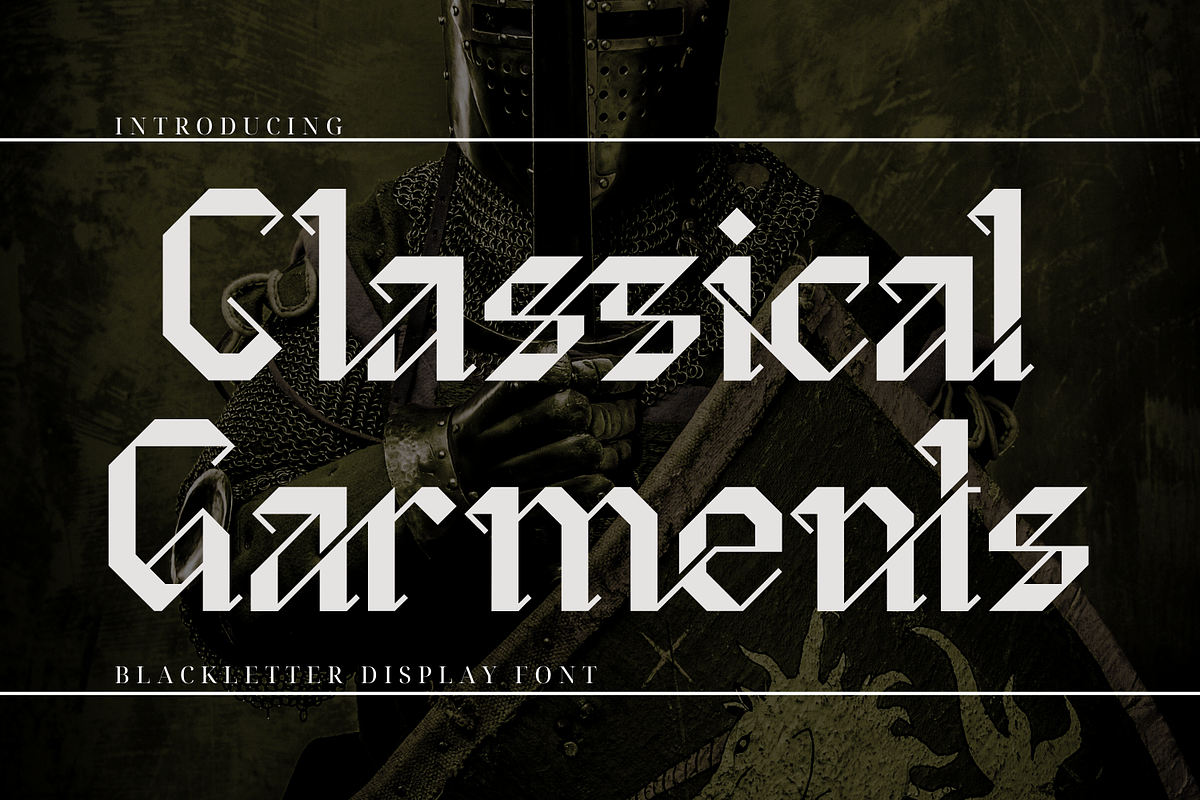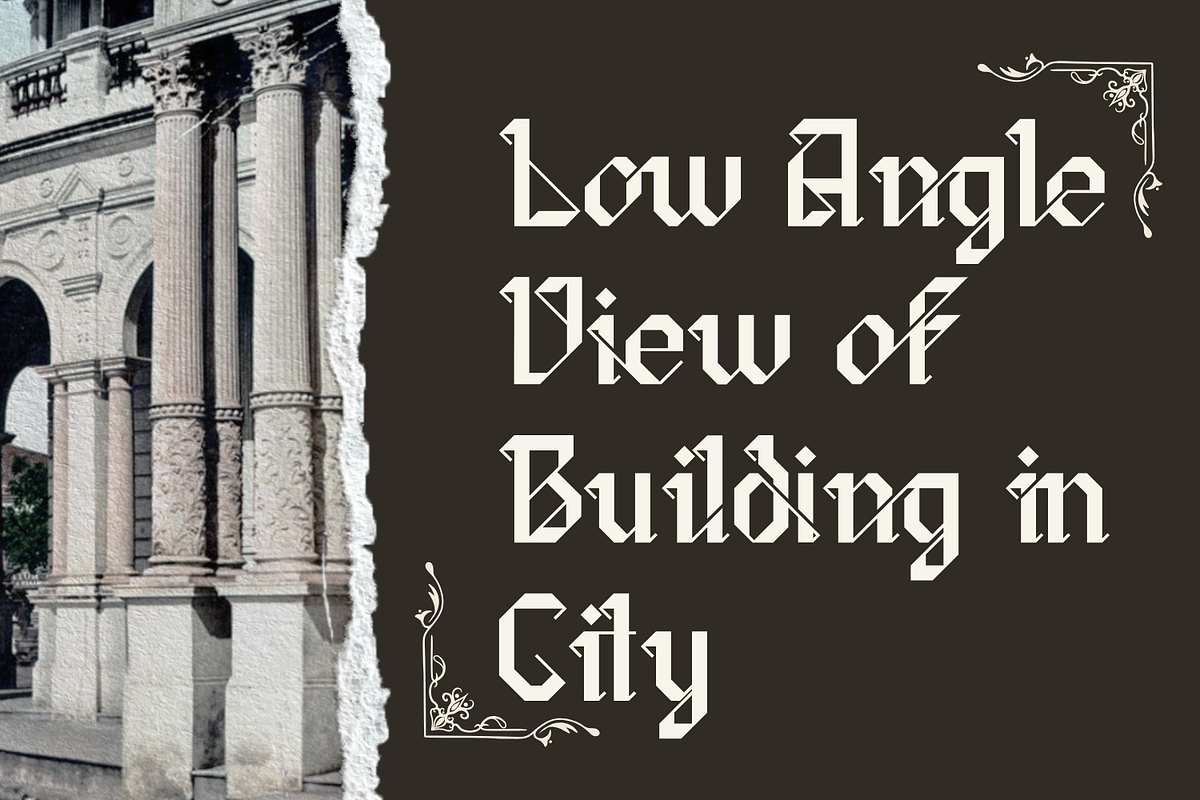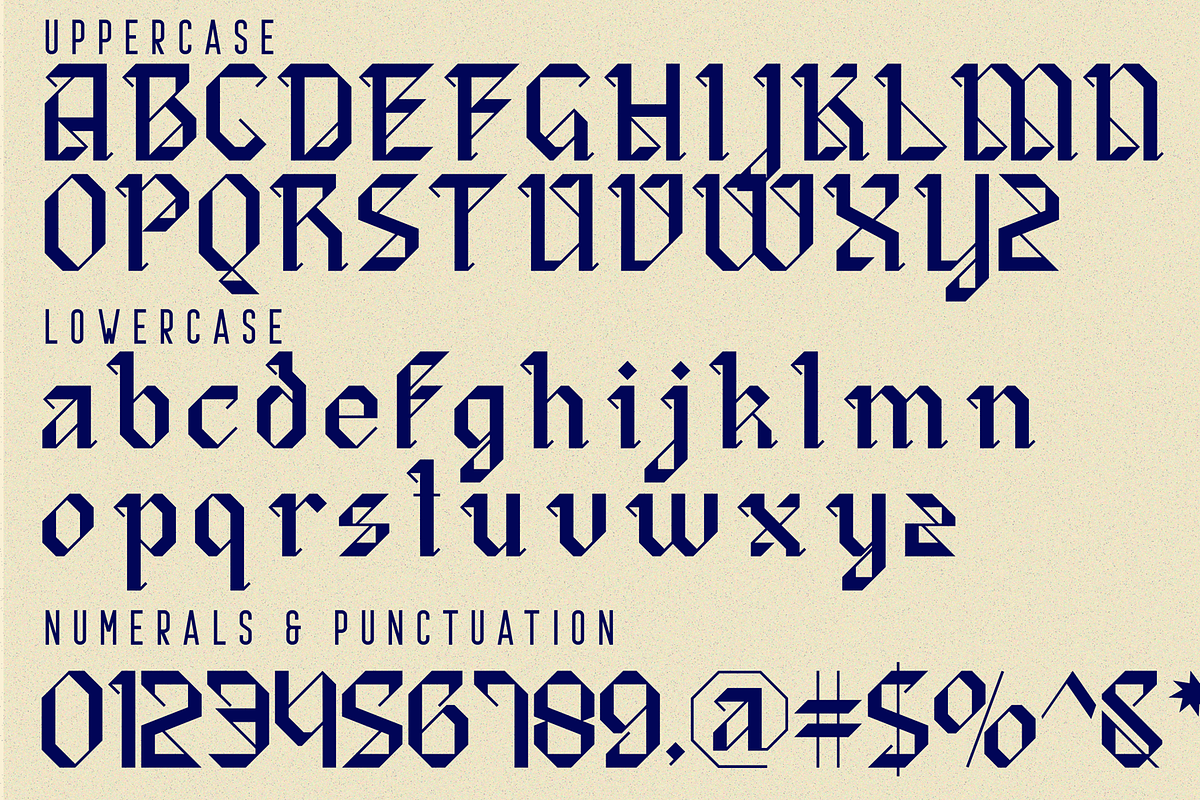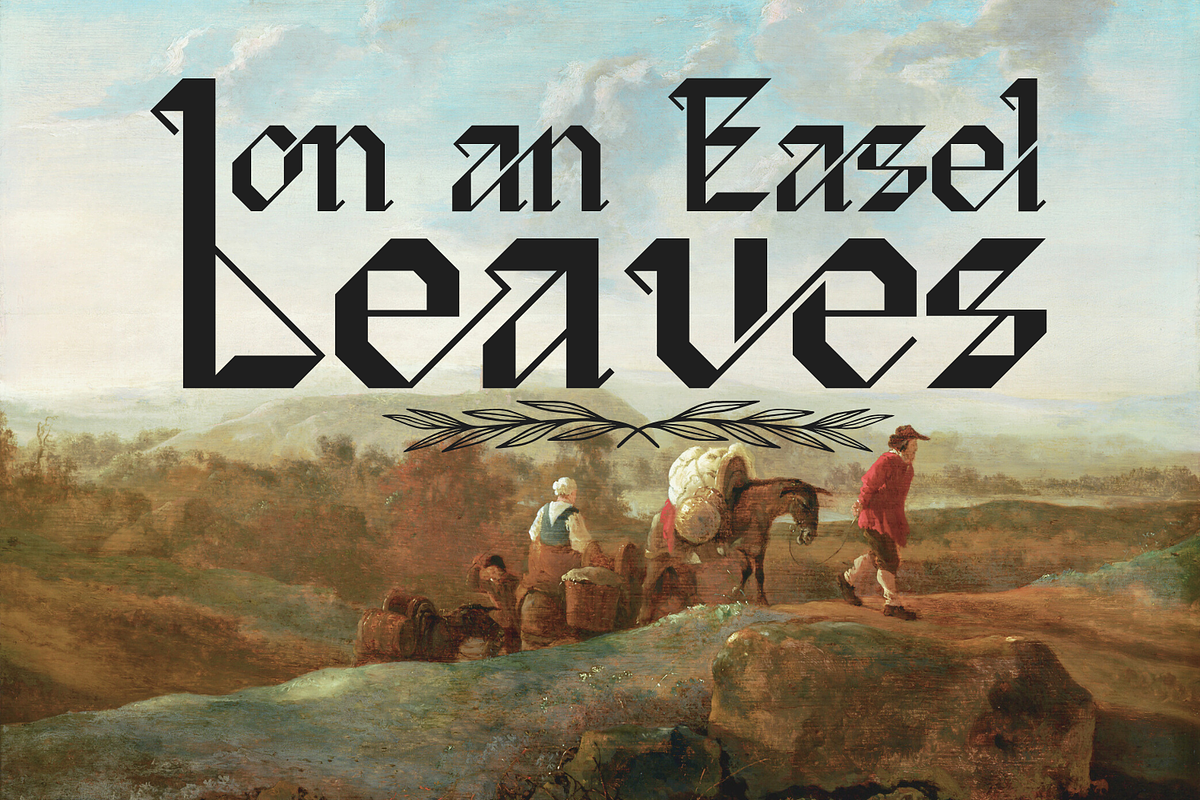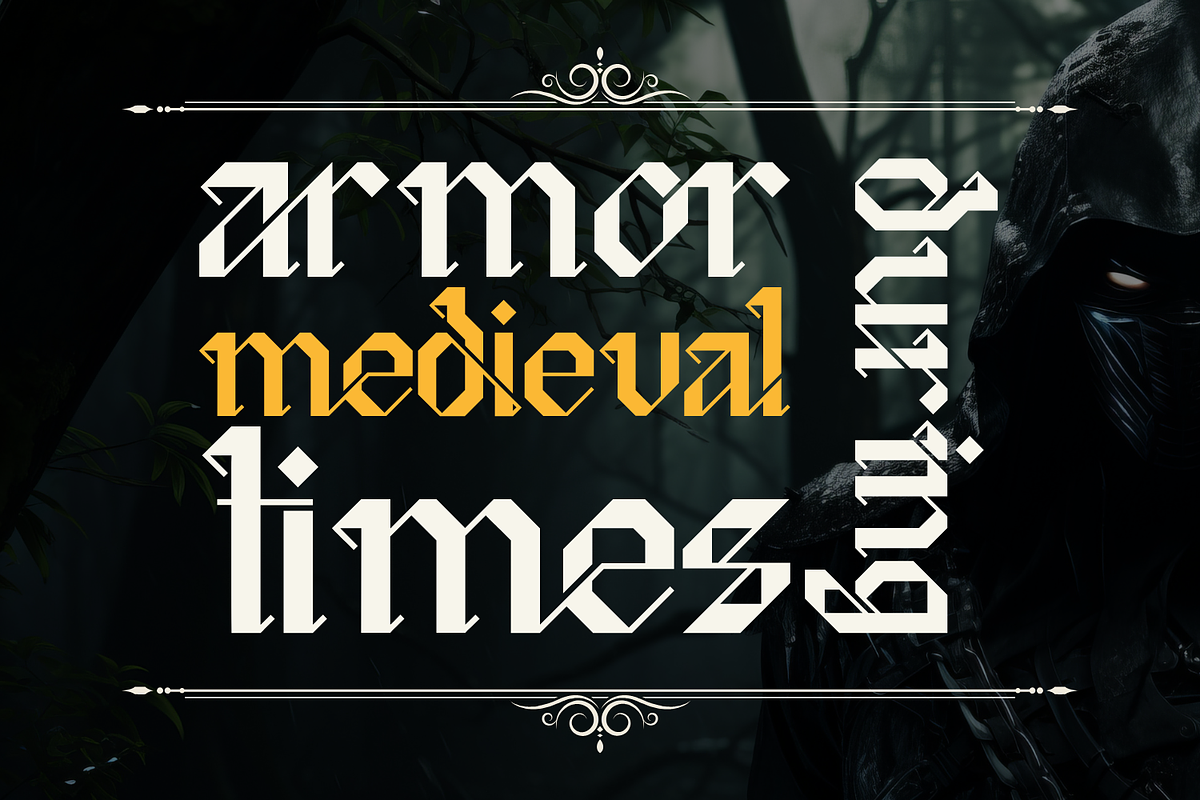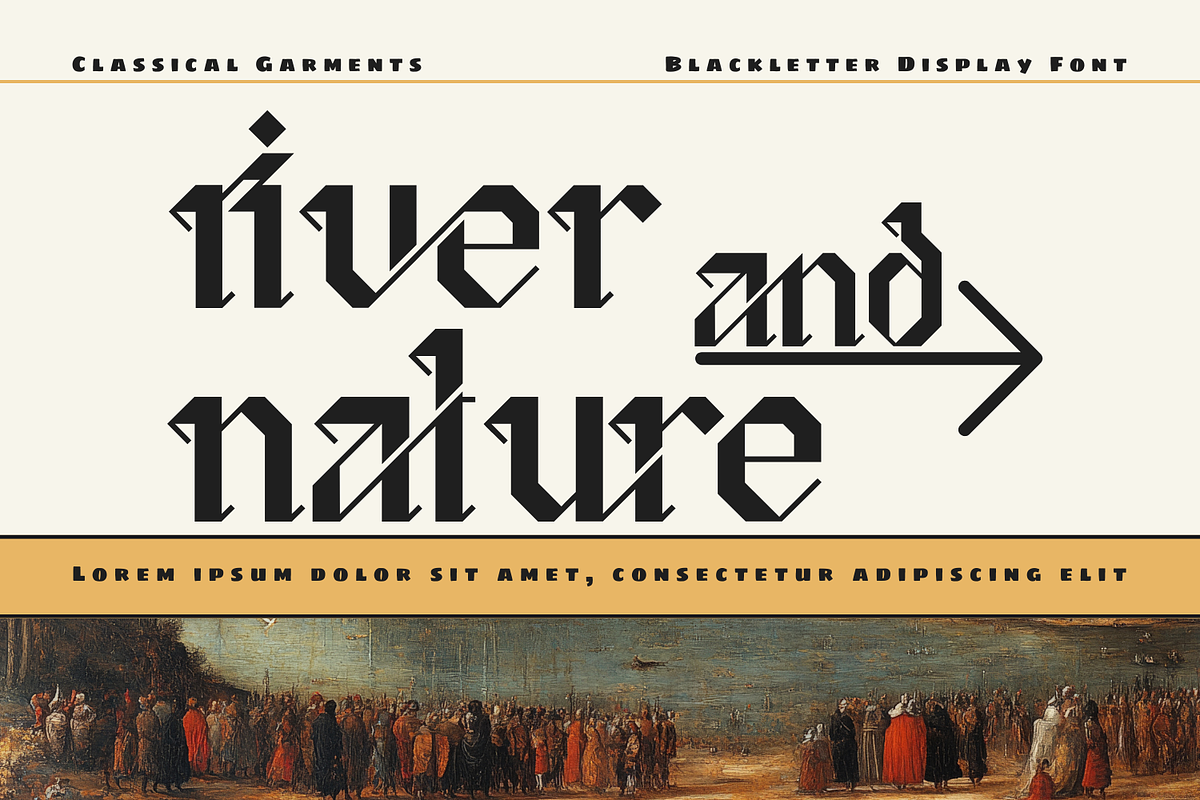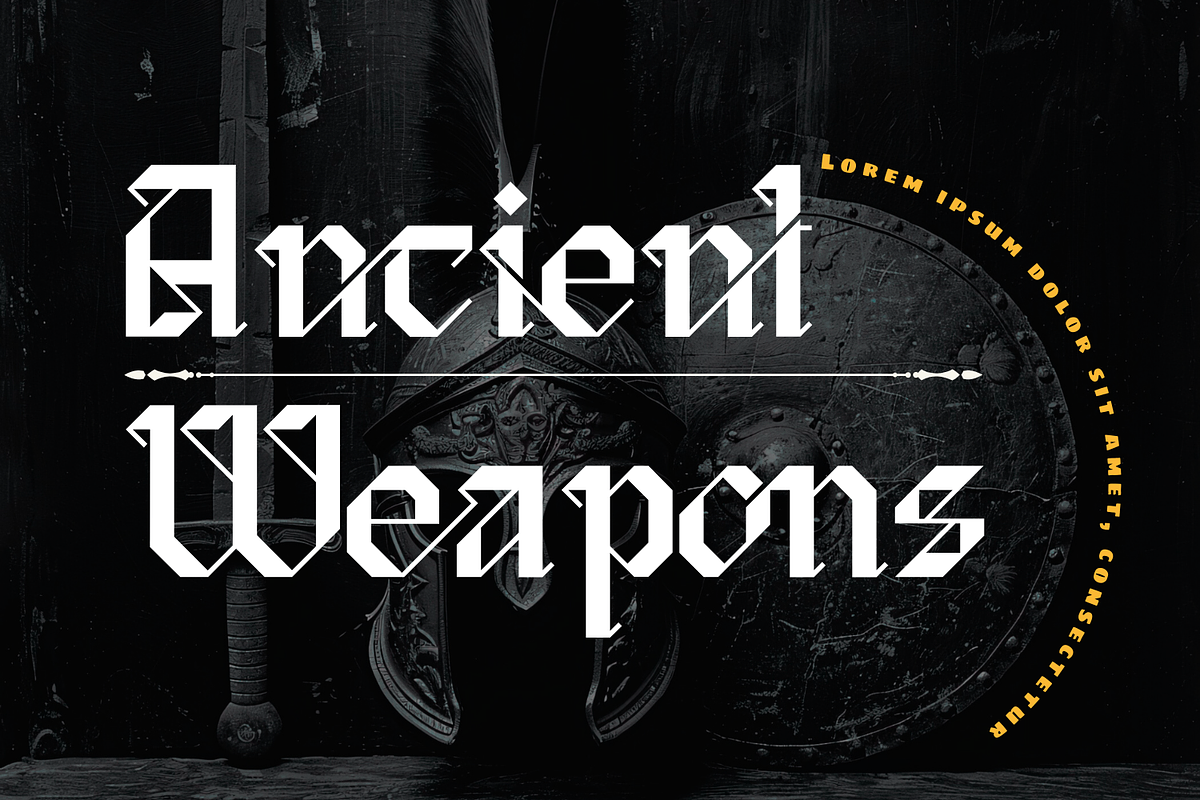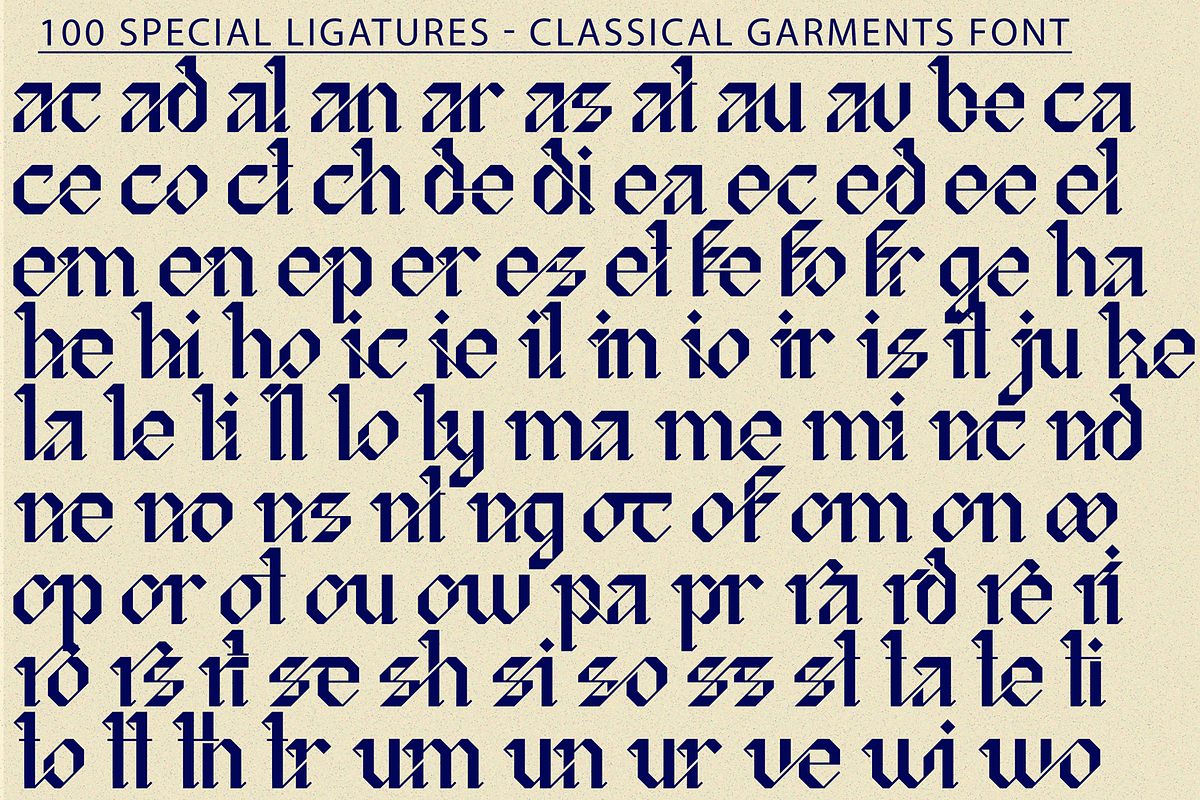
Classical Garments Font
Classical Garments Font is a modern blackletter display font that combines the timeless elegance of traditional blackletter design with a bold, contemporary approach. Featuring sharp lines, striking serifs, and bold strokes, this typeface exudes authority and sophistication, while its modern elements make it relevant and impactful in today’s design landscape.
Classical Garments was built with OpenType features and includes 100 ligatures, alternate, numbers, punctuation, and it also supports other languages.
ac ad al an ar as at au av be ca ce ch co ct de di ea ec ed ee el em en ep er es et fe fo fr ge ha he hi ho ie ic il in io ir is it ju ke la le li ll lo ly ma me mi nc nd ne ng no nt ns oc of om on oo op or ot ou ow pa pr ra rd re ri ro rs rt se sh si so ss st ta te th ti to tr tt um un ur ve wi wo
- Special Ligatures